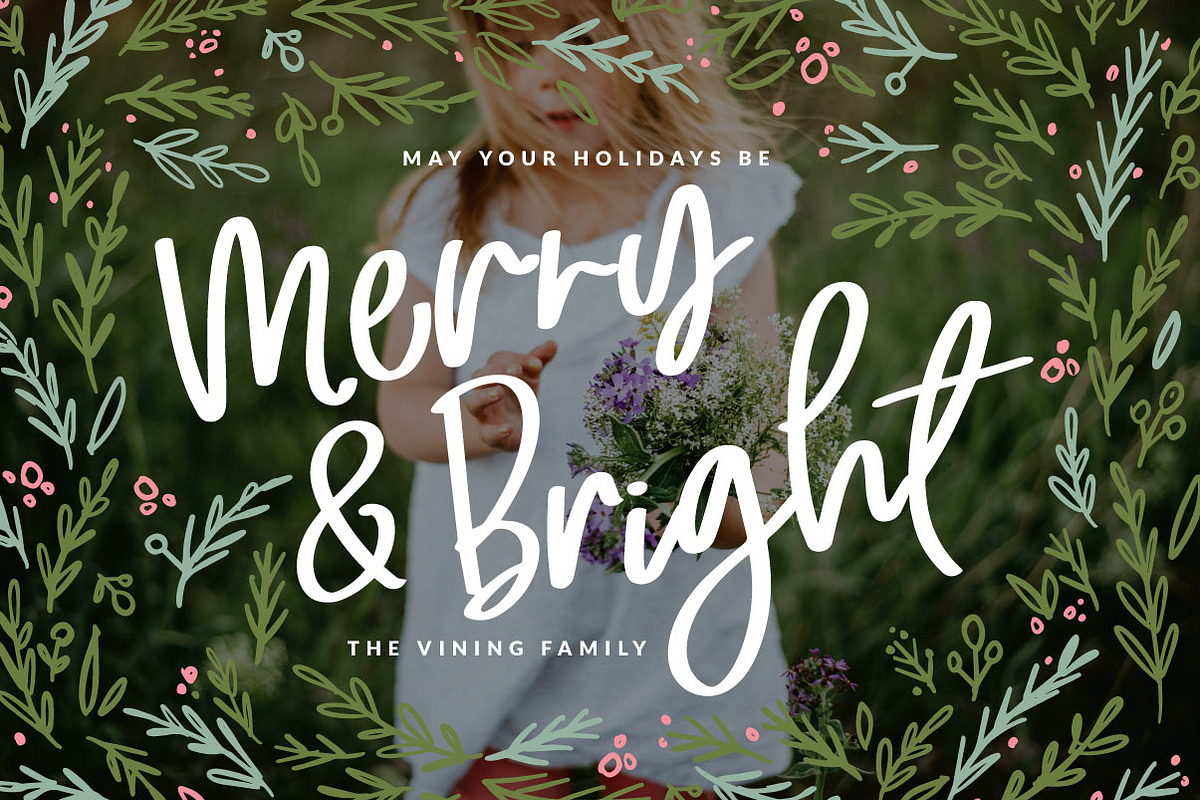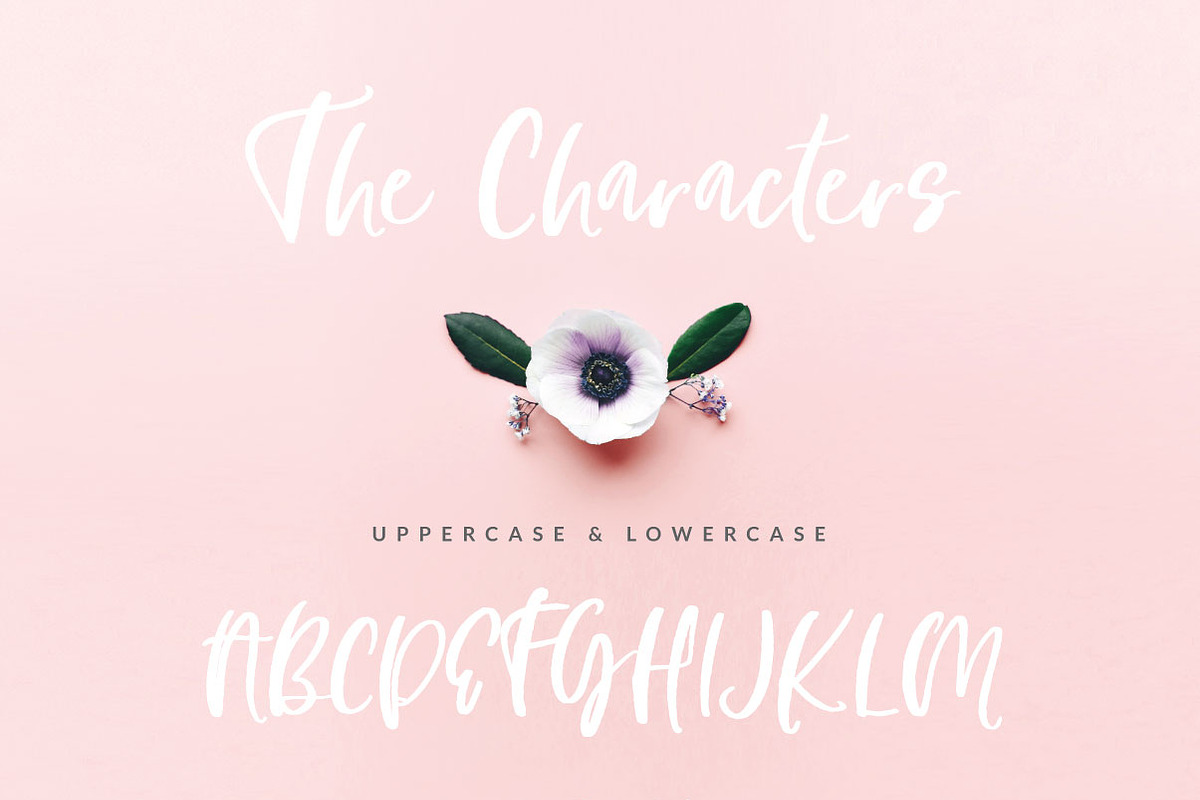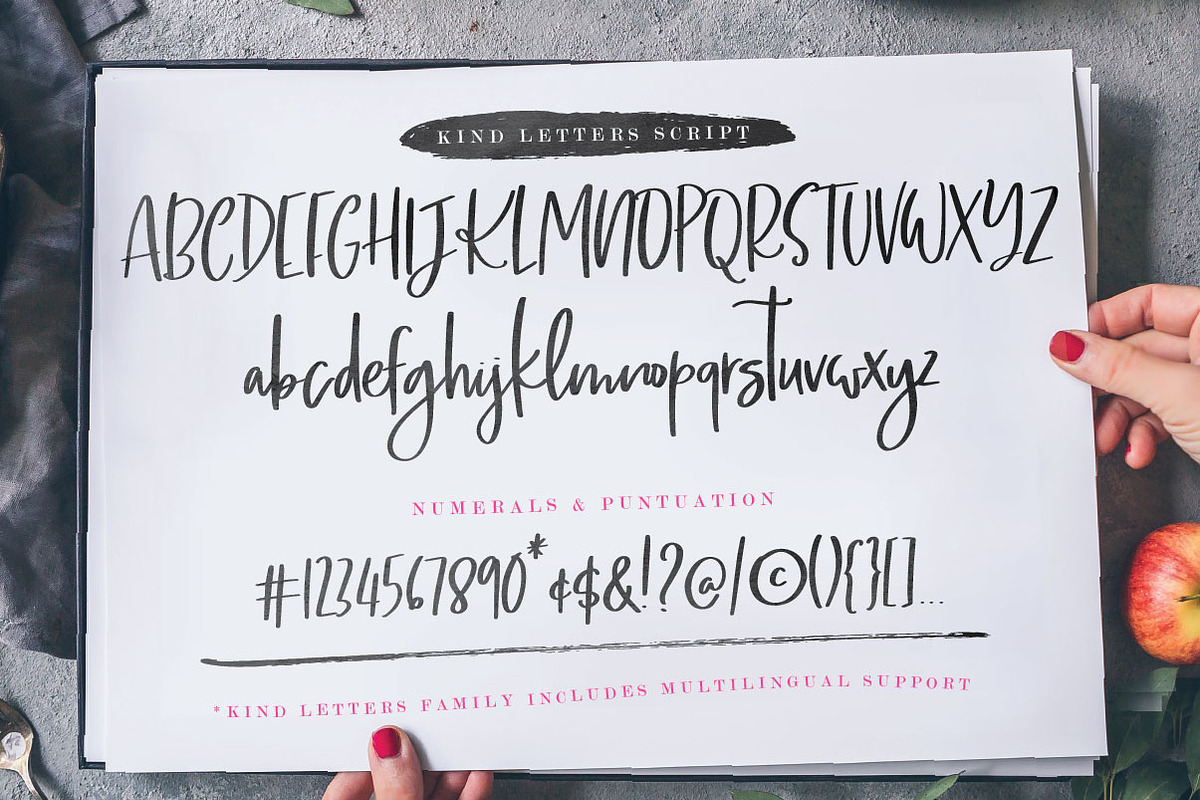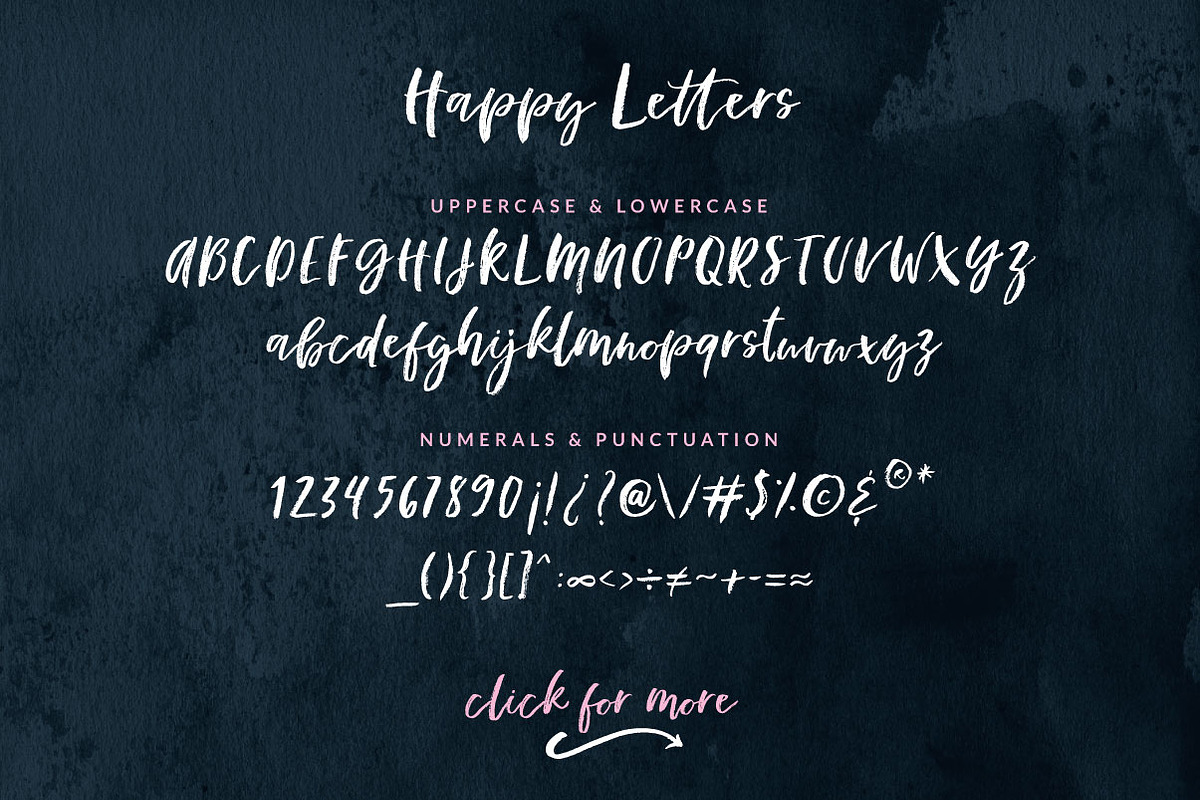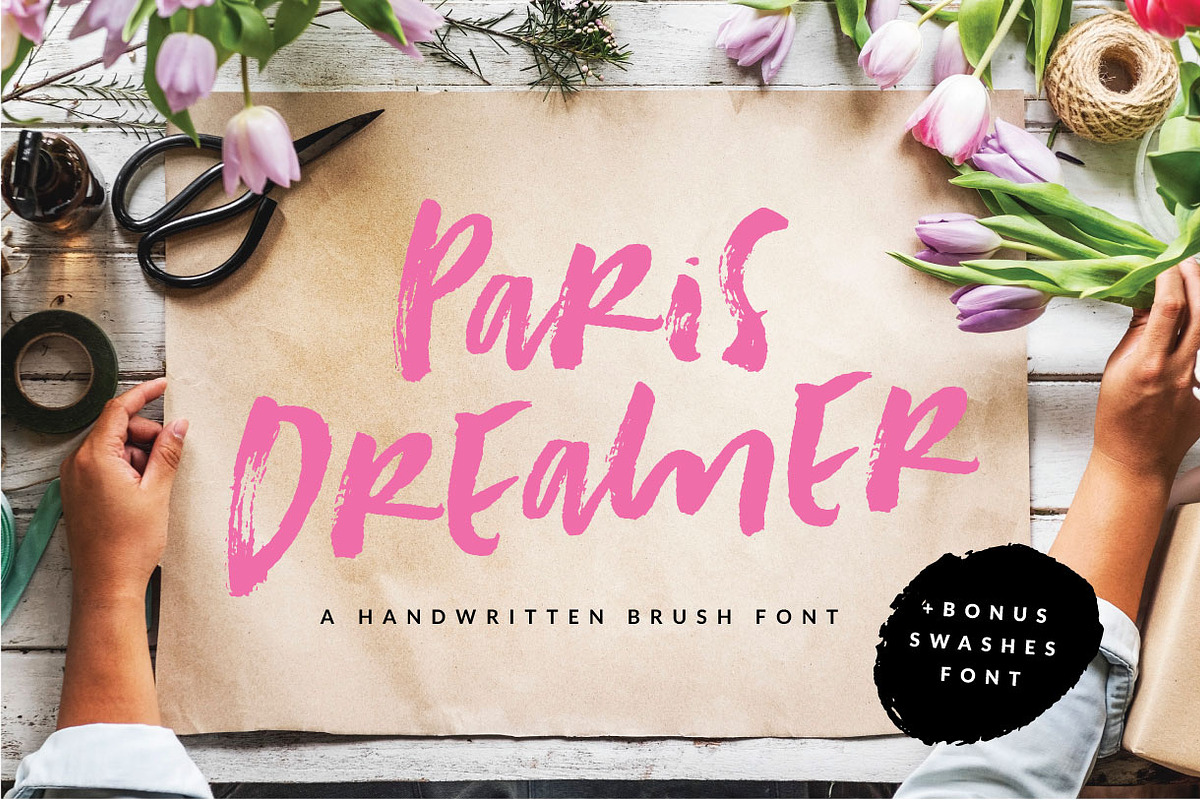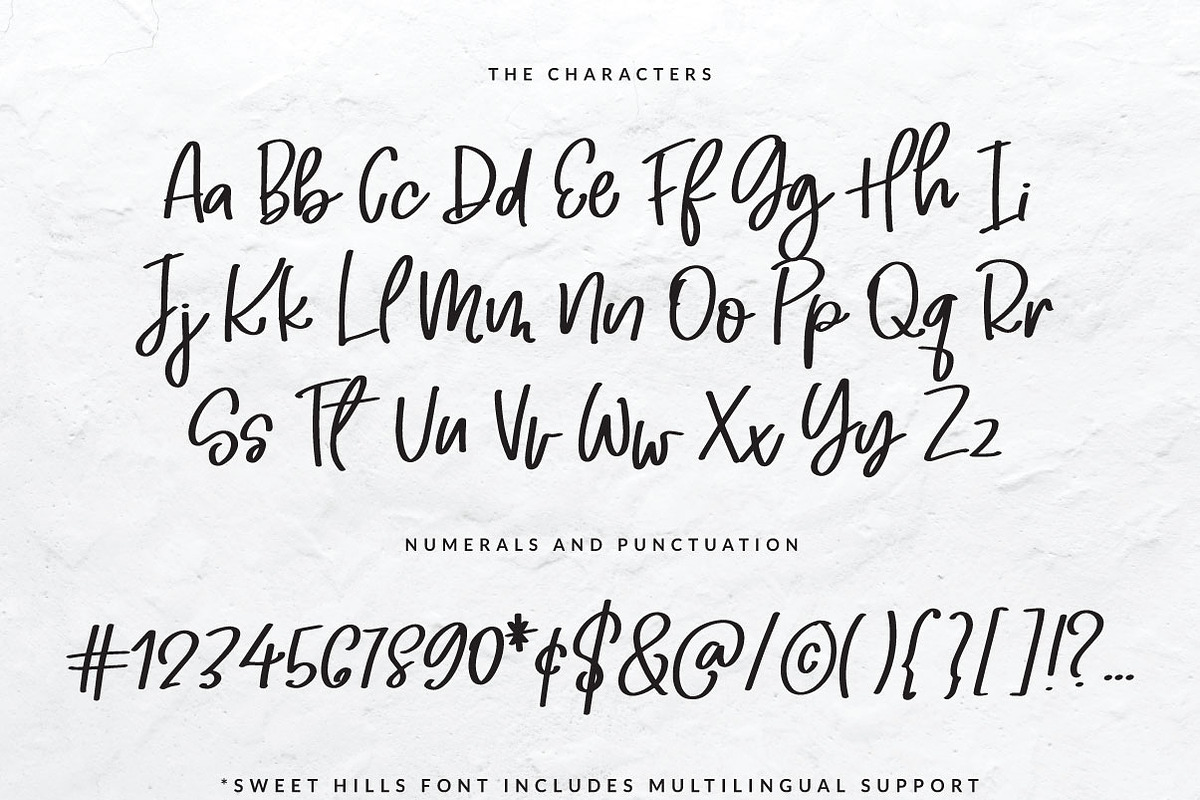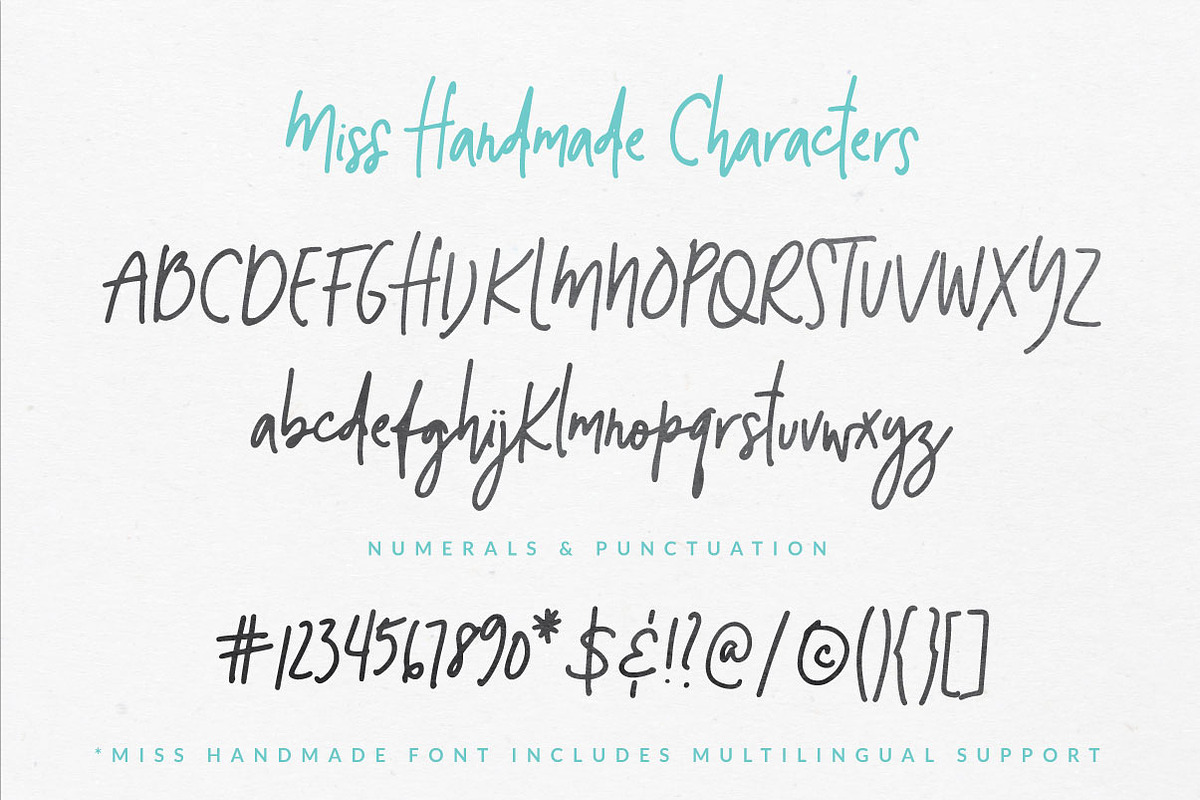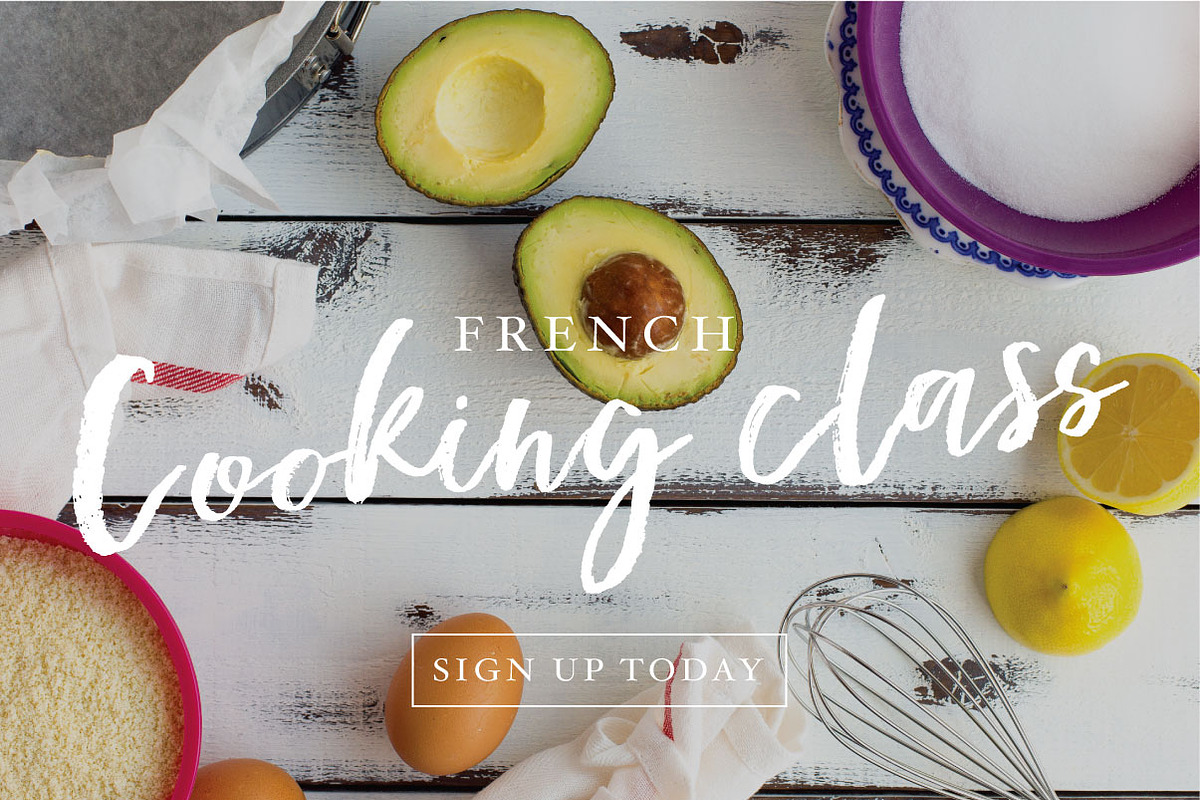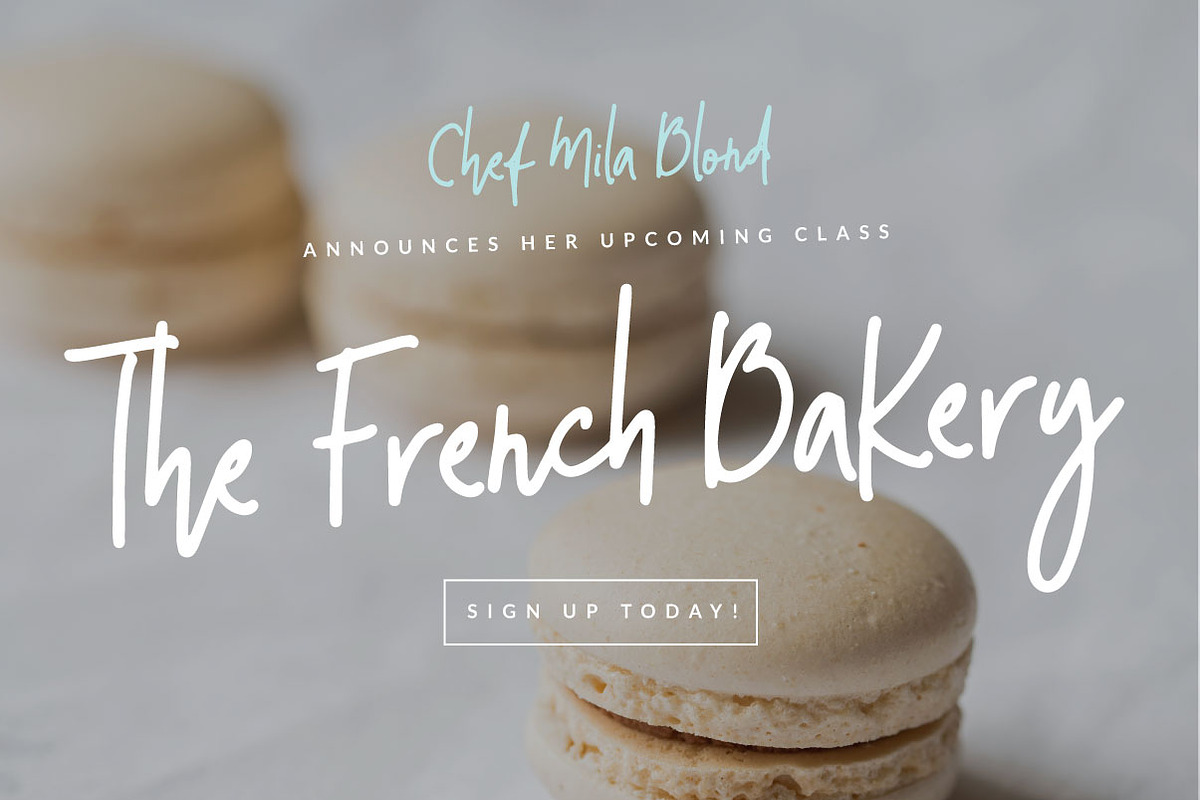
Fonts bundle - 12 fonts
12 Hand lettering and script font families together to mix and match on your personal and commercial projects.
Casual, playful and full of style these fonts are going to add a lot of personality to your creations, designs and projects. Featuring dingbats, letterings, logos, stylistic sets and lots of ligatures to add a natural and organic feeling to your texts, titles & paragraphs.
12 Font Families: including 21 font variations = 14 Script fonts + 7 dingbats fonts + 16 logos
- Full upper and lowercase